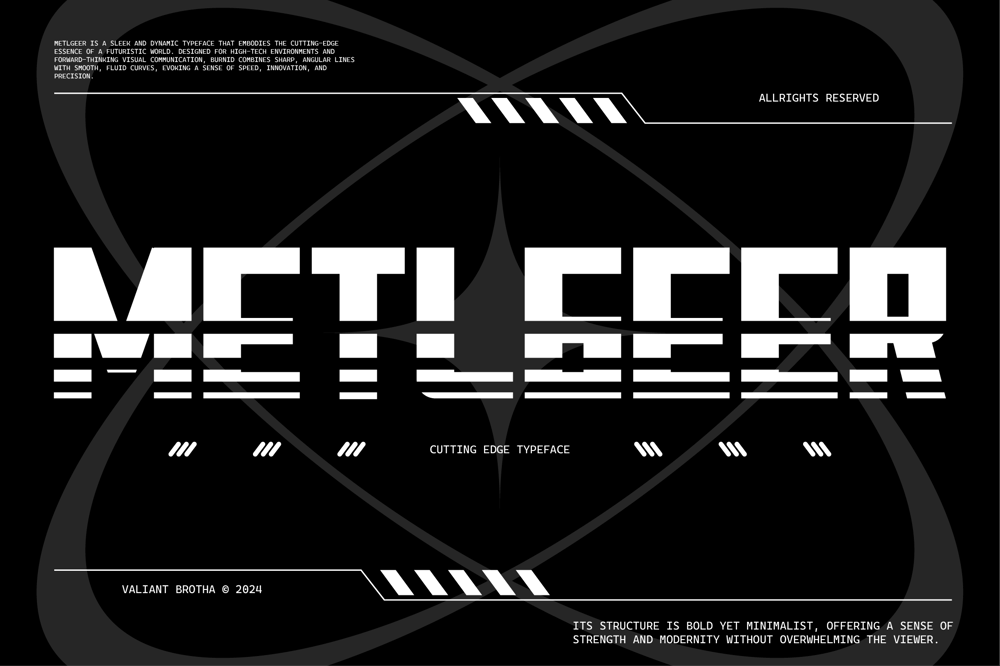
MetlGeer Font Family was designed by Agus Prima and published by Valiantbrotha. MetlGeer contains 1 styles and family package options. MetlGeer is a sleek and dynamic typeface that embodies the cutting-edge essence of a futuristic world. designed for high-tech environments and forward-thinking visual communication, MetlGeer combines sharp, angular lines with smooth, fluid curves, evoking a sense of speed, innovation, and precision.